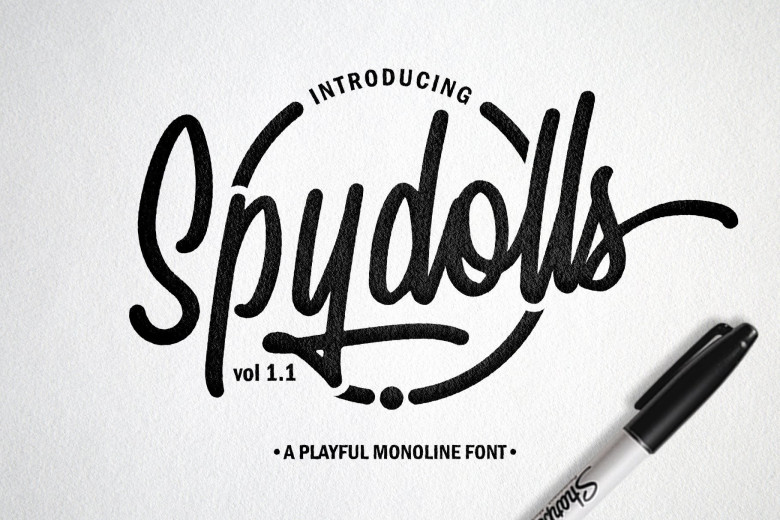
Spydolls Script Font
A playful monoline font, this is a fashionable sophisticated playful monoline style script with its own unique curves and an elegant inky flow. Introducing Spydolls Font. Spydolls Script Font is a playful monoline script font inspired by the handwriting of marker pen, highly recommended for your design projects. You can use it for: logo design, t-shirt, branding, prints, and much more. A total of 600 glyph with a great selection of each glyph multilingual language support comes with a standard european made you not difficult to use.